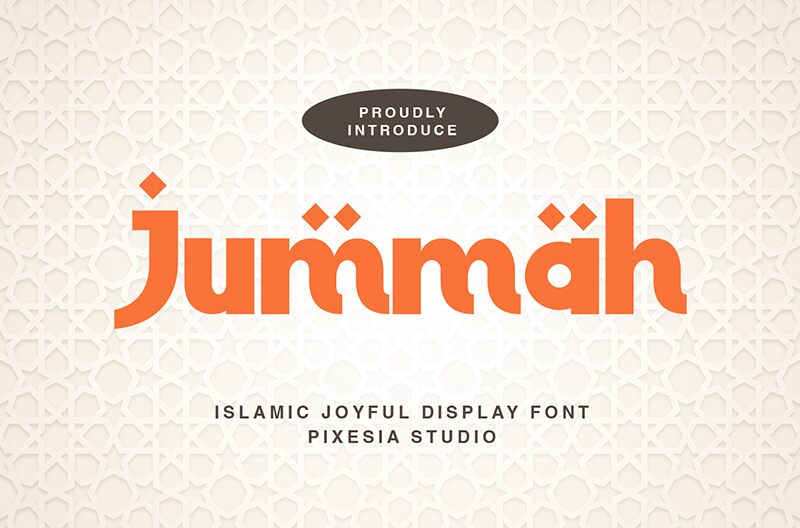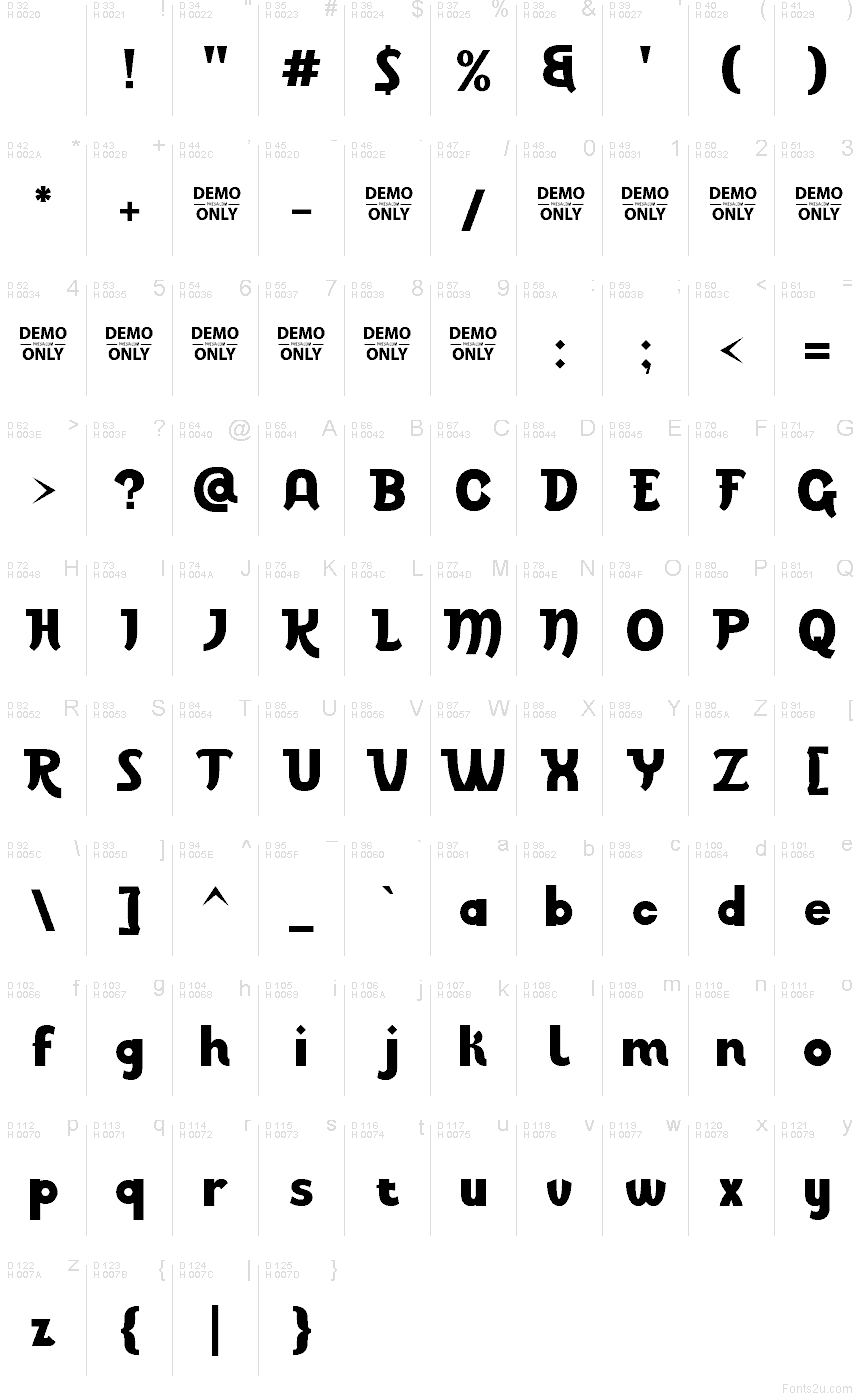
Jummah Demo Regular
Jummah font by Pixesia Studio is a free faux Arabic display typeface that gives Latin letters the flowing, hooked rhythm of Arabic signage. The chunky strokes feel bold yet friendly, with soft inner curves and squared terminals that echo hand-painted storefronts and festival banners. It has a sturdy, blocky weight that stays readable even at smaller sizes, while the stylized curves instantly suggest Middle Eastern and Islamic themes without requiring actual Arabic support.
Using Jummah, this free font shines on Ramadan and Eid posters, halal food branding, mosque event flyers, kids’ activity sheets, YouTube thumbnails, and cultural festival signage. The strong forms hold up beautifully in logos and headlines; keep body text in a simple sans serif and let Jummah handle the main word or phrase. Set it large, with generous spacing, to really show off its sculpted, calligraphy-inspired contours.